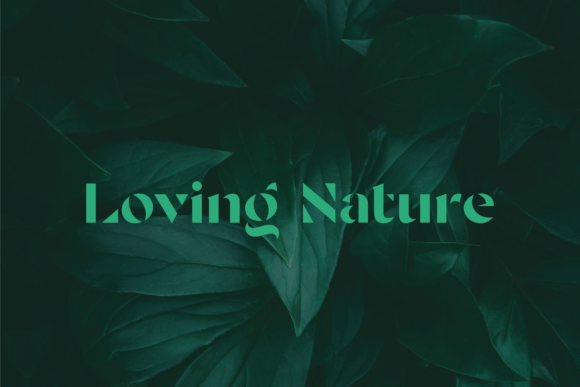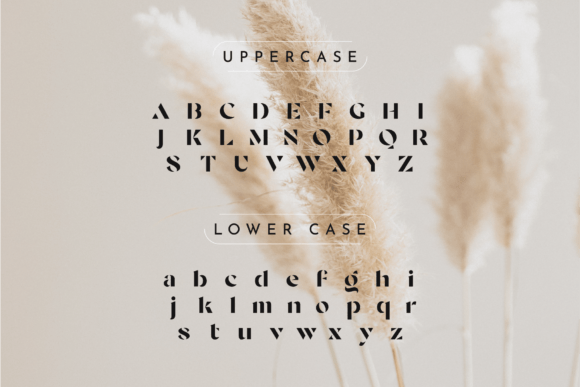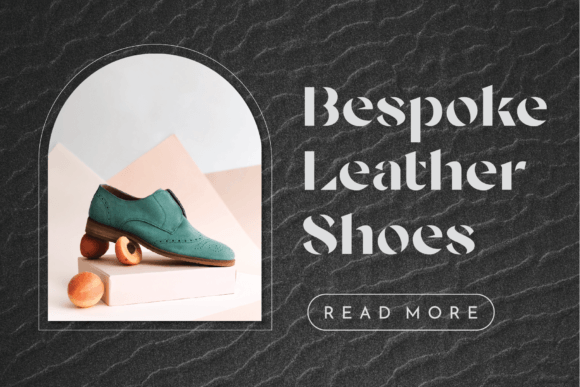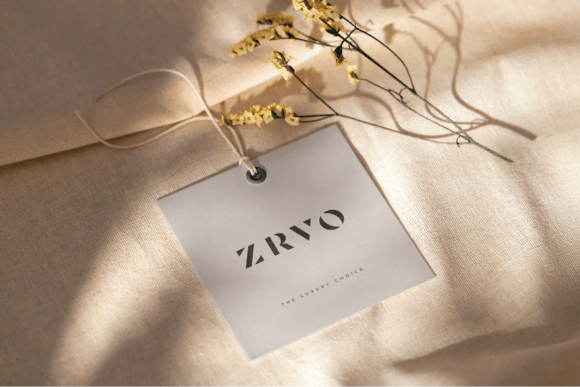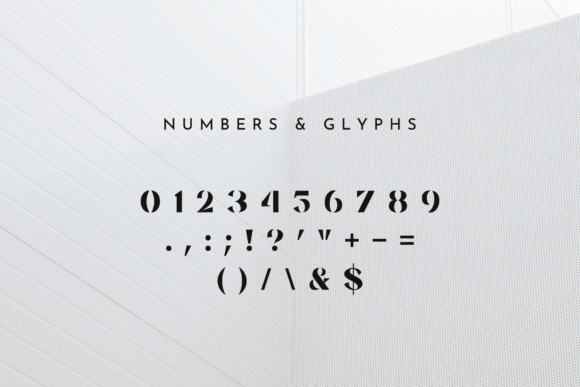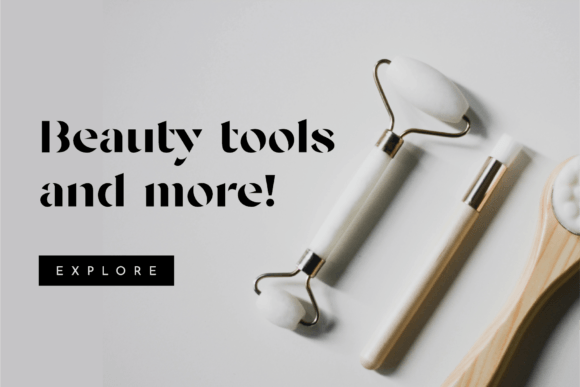
The Elda Font: Elevate Your Design with Elegance and Sophistication
I’ll never forget the time I was working on a luxury branding project for a high-end fashion client. I had spent hours pouring over design concepts, but something was missing. The design felt flat, and I couldn’t quite put my finger on what it needed. That’s when I stumbled upon the Elda font. This elegant stencil font has a unique yet minimalist appearance that instantly elevated my design and gave it the luxurious feel my client was looking for.
A Closer Look: What I Love About Elda Font
The Elda font is a game-changer for designers, crafters, and creative hobbyists looking to add a touch of sophistication to their work. Here are some things I love about this stunning font:
- ✨ Elegant and sophisticated design: Elda’s stencil font has a unique, high-end feel that’s perfect for luxury branding and design projects.
- ✅ Versatile and flexible: This font can be used for a wide range of design applications, from packaging and posters to social media posts and headers.
- ✨ Bold and eye-catching: Elda’s stencil font adds a touch of boldness to any design, making it perfect for creating striking visuals.
Honest Review: A Few Quirks to Consider
While Elda font is an excellent choice for many design projects, there are a few quirks to consider:
- 🤔 Limited use in body text: Due to its stencil design, Elda font may not be the best choice for lengthy body text. It’s best used for headings, titles, and short phrases.
- ⚠️ Requires careful kerning: As with any font, careful kerning is essential to ensure that Elda font looks its best. Be prepared to adjust the spacing between letters to achieve the desired effect.
The Story Behind Elda Font
Elda font was designed by a team of typographers who wanted to create a font that would evoke the elegance and sophistication of luxury brands. Inspired by classic stencil fonts, Elda’s designers aimed to create a modern, versatile font that would be perfect for a wide range of design applications.
- Q: What type of design projects is Elda font best suited for?
- A: Elda font is perfect for luxury branding, packaging design, posters, social media posts, headers, and other high-end design projects.
- Q: Can I use Elda font for body text?
- A: While Elda font can be used for short paragraphs, it’s best suited for headings, titles, and short phrases due to its stencil design.
- Q: Is Elda font available in different weights and styles?
- A: Yes, Elda font comes in a range of weights and styles, making it versatile and flexible for different design applications.